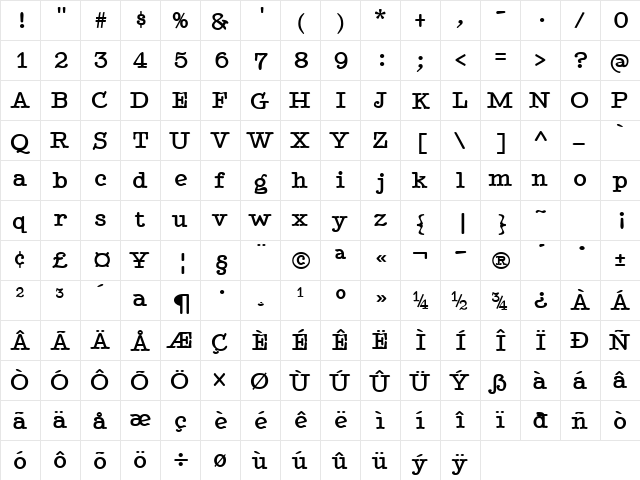
BetterTypeRight Bold Font Preview
BetterTypeRight Bold
Design Context for BetterTypeRight Typeface
BetterTypeRight is a composed and adaptable typeface that performs quietly and consistently across a wide range of design contexts. The heavy weight commands attention and anchors typographic hierarchies.